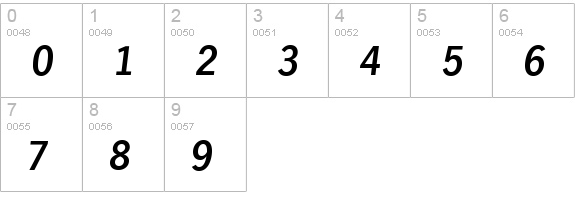
Hamburg-MediumIta Font Details
Hamburg-MediumIta font is a stunning and versatile typeface that exudes elegance and sophistication. With its clean and modern design, this font is perfect for a wide range of design projects, including branding, advertising, packaging, and more. What sets Hamburg-MediumIta font apart is its unique combination of strong, bold lines and delicate curves, creating a harmonious balance that catches the eye and leaves a lasting impression. Its medium weight strikes the perfect balance between legibility and impact, making it ideal for both headlines and body text. One of the most appealing aspects of Hamburg-MediumIta font is that it is freely available to download at FontsMarket.com. This means that designers and creatives from all walks of life can access and utilize this remarkable typeface without any cost. Whether you are a professional graphic designer or a hobbyist, this font offers a high-quality and visually captivating option that won't break the bank. With its extensive character set and support for multiple languages, Hamburg-MediumIta font ensures that your message can be effectively communicated to a global audience. Its versatility allows it to seamlessly adapt to various design styles and themes, making it a valuable asset for any creative project. In conclusion, Hamburg-MediumIta font is a free and remarkable typeface that combines elegance, versatility, and accessibility. Embrace its beauty and unleash your creativity by downloading it today at FontsMarket.com.